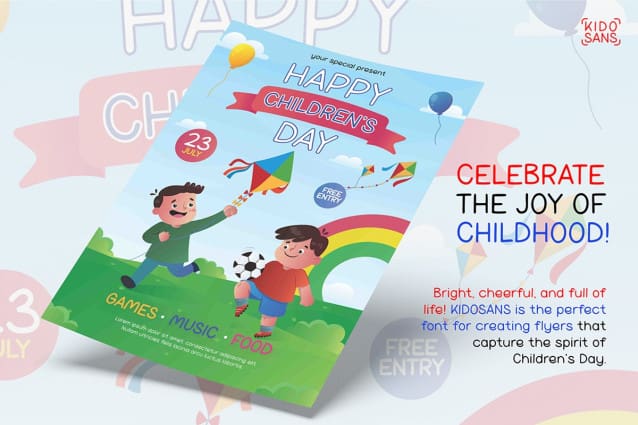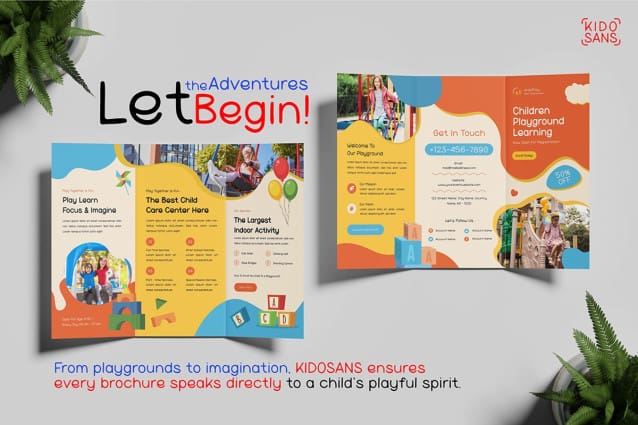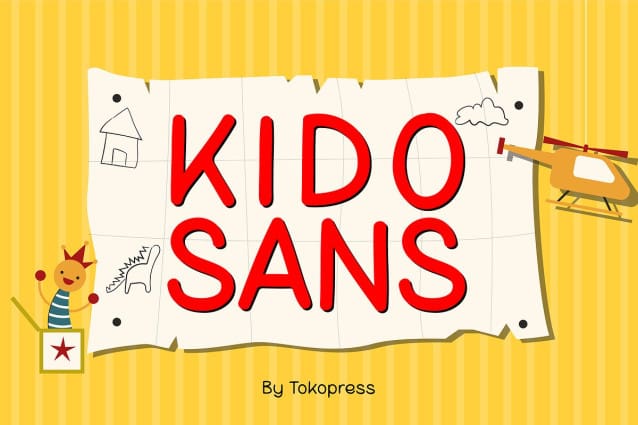
Kidosans Font
Kidosans Font is a fun and playful font designed specifically for kids and educational themes! With its cheerful and friendly vibe, Kidosans Font is perfect for any design that revolves around children and school life. Ideal for children’s books, educational brands, learning materials, and products that emphasize the joy of childhood.
Let every letter in Kidosans bring imagination and happiness to your project, making it the perfect choice for anything related to the world of kids!